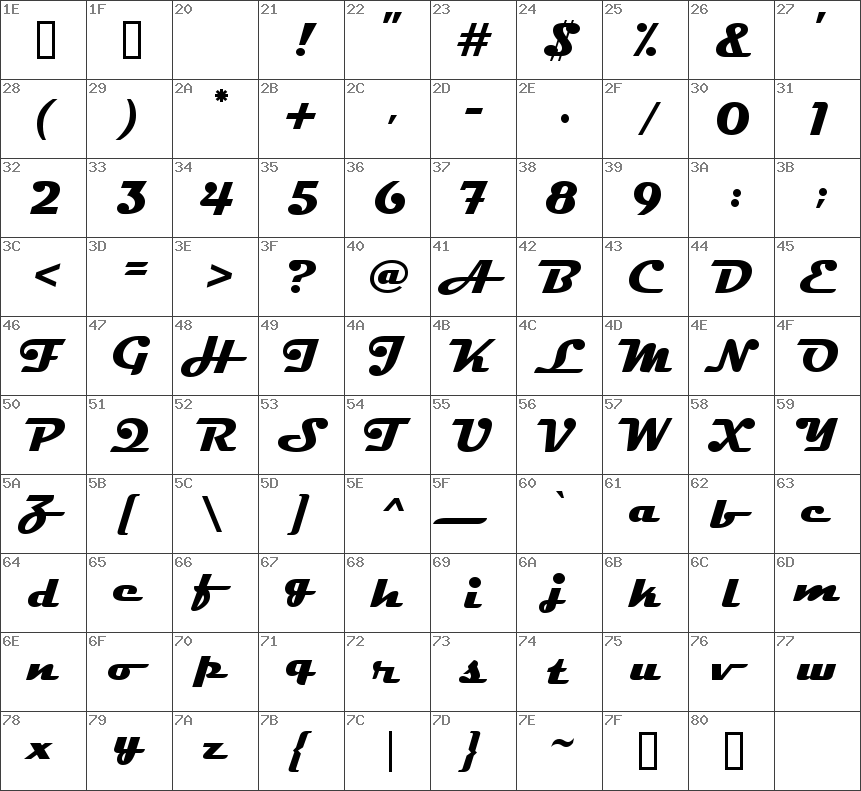
Magneto Bold Font
Magneto Bold Font - A script typeface with 3 styles, available from adobe fonts for sync and web use. Web explore magneto available at adobe fonts.
Web explore magneto available at adobe fonts. A script typeface with 3 styles, available from adobe fonts for sync and web use.
A script typeface with 3 styles, available from adobe fonts for sync and web use. Web explore magneto available at adobe fonts.
Web explore magneto available at adobe fonts. A script typeface with 3 styles, available from adobe fonts for sync and web use.
A script typeface with 3 styles, available from adobe fonts for sync and web use. Web explore magneto available at adobe fonts.
Web explore magneto available at adobe fonts. A script typeface with 3 styles, available from adobe fonts for sync and web use.
A script typeface with 3 styles, available from adobe fonts for sync and web use. Web explore magneto available at adobe fonts.
Web explore magneto available at adobe fonts. A script typeface with 3 styles, available from adobe fonts for sync and web use.
A script typeface with 3 styles, available from adobe fonts for sync and web use. Web explore magneto available at adobe fonts.
Web explore magneto available at adobe fonts. A script typeface with 3 styles, available from adobe fonts for sync and web use.
A Script Typeface With 3 Styles, Available From Adobe Fonts For Sync And Web Use.